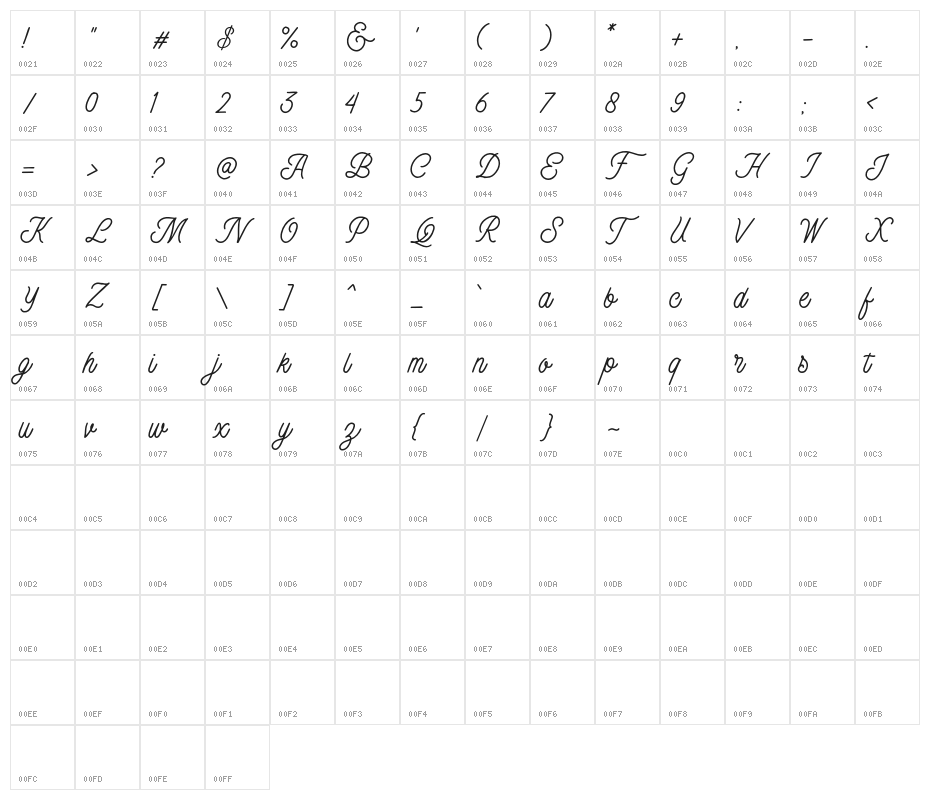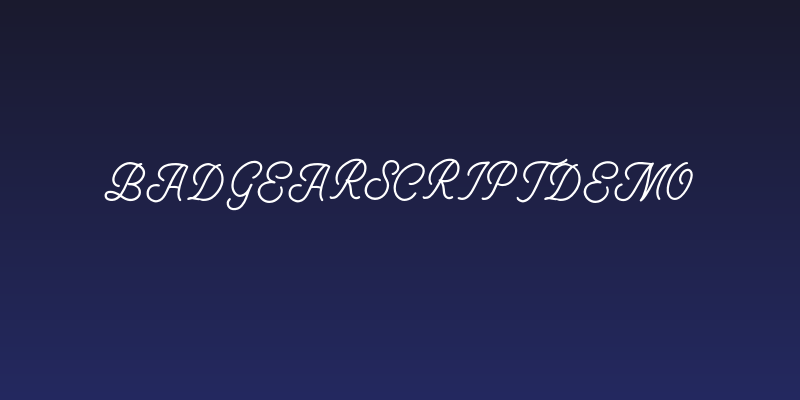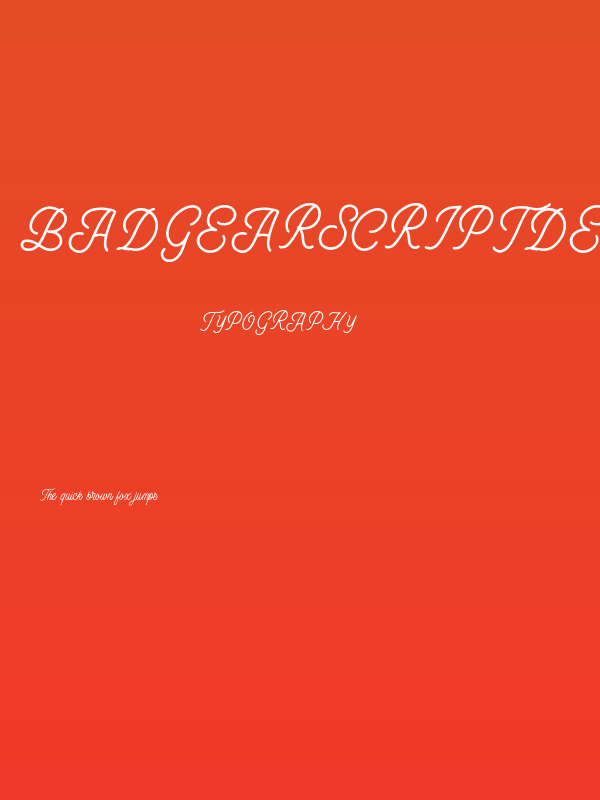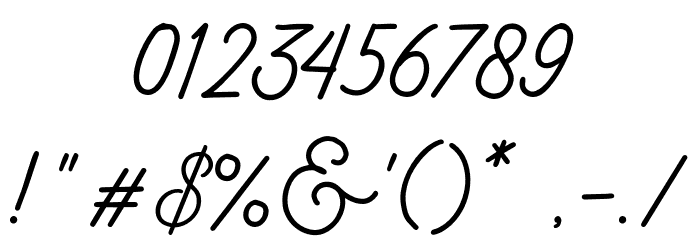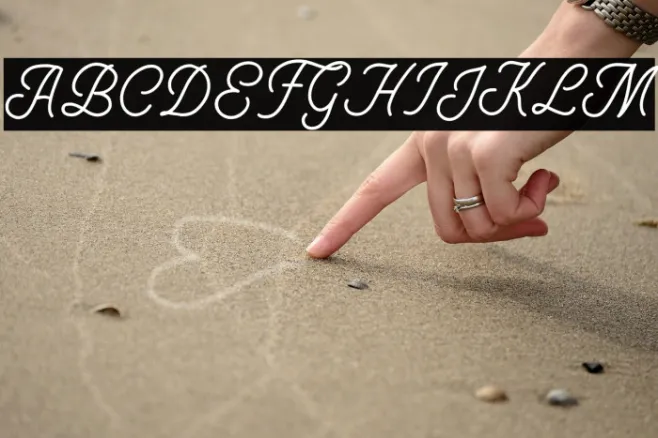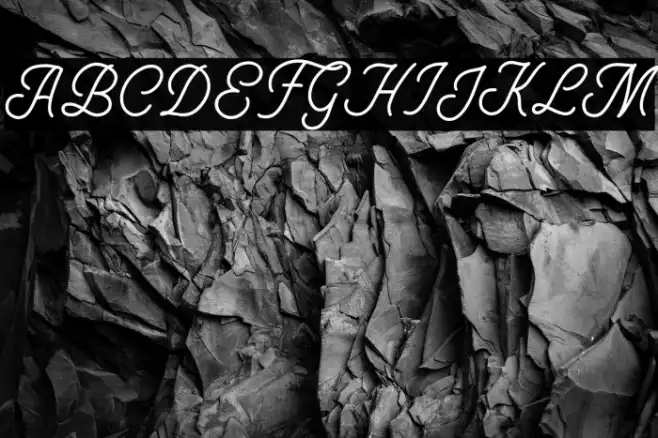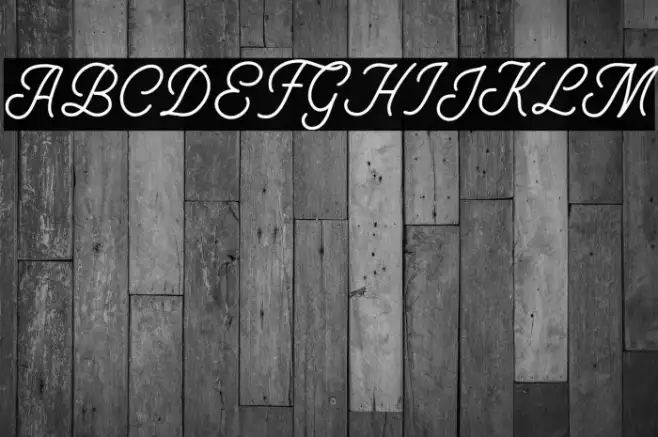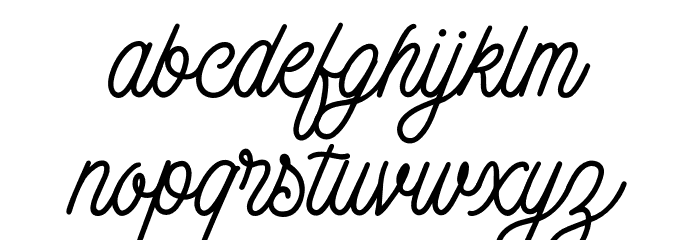
BadgearScriptDEMO Font
BadgearScriptDEMO Description
This font features an elegant and flowing script style, characterized by its smooth, cursive letterforms that mimic the fluidity of handwriting. The uppercase letters are slightly more ornate, with graceful loops and swirls, while the lowercase letters maintain a consistent and harmonious flow. The numerals are designed to complement the script style, with a slight slant and rounded edges. Special characters are integrated seamlessly, maintaining the overall aesthetic. The font exudes a sense of sophistication and charm, making it ideal for projects that require a personal touch.